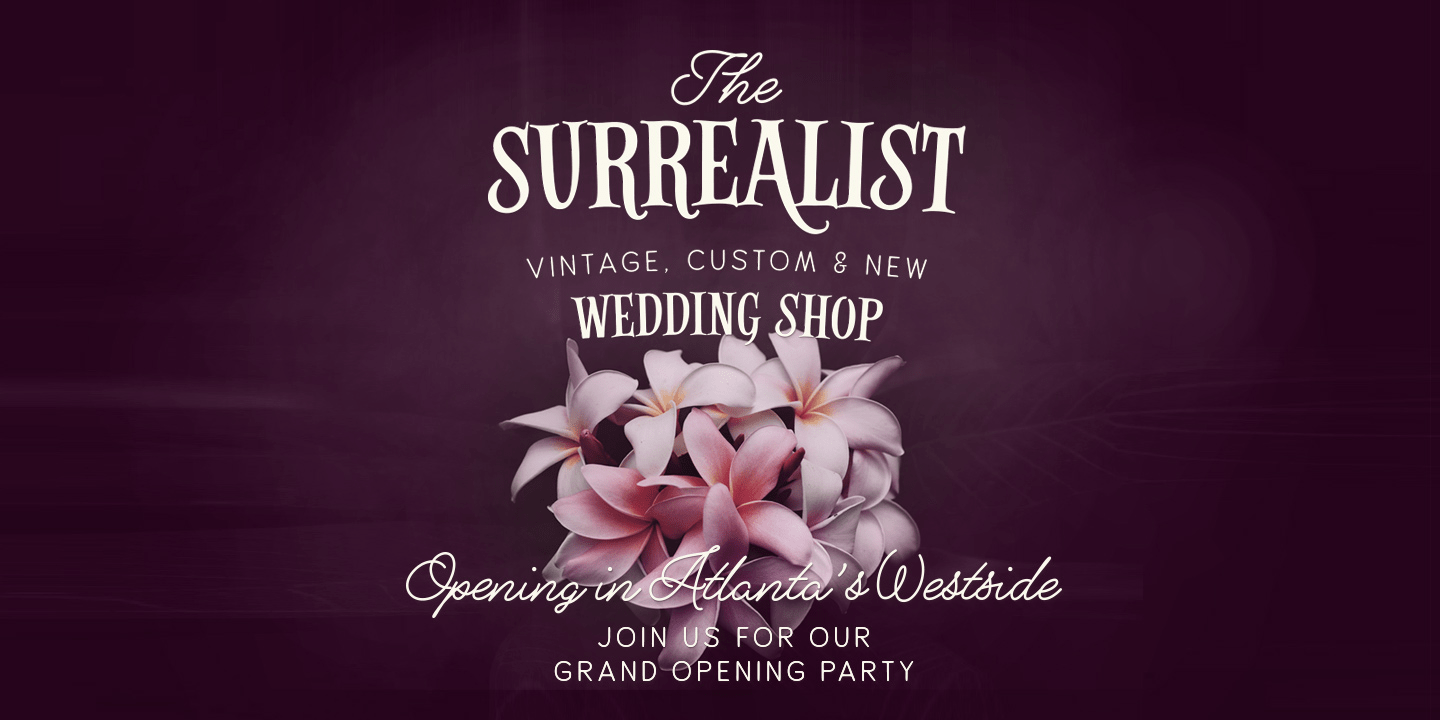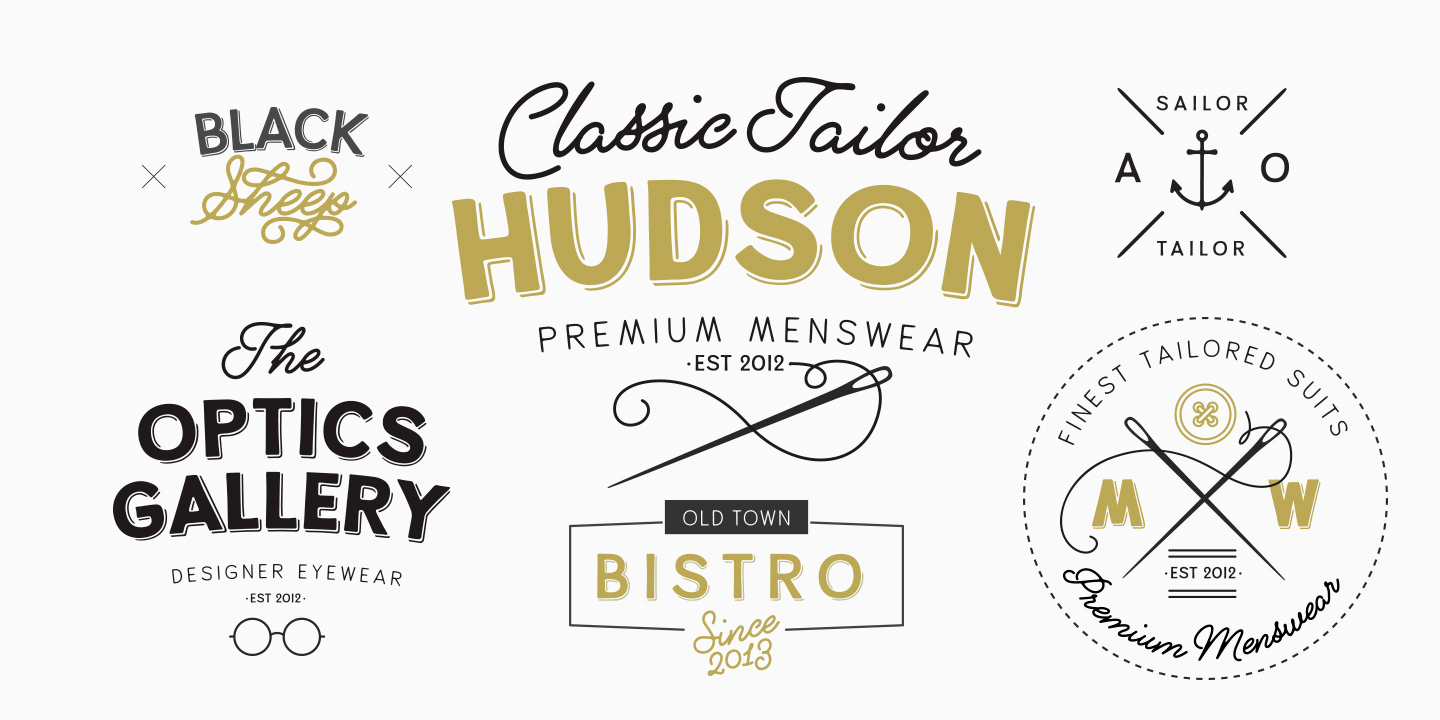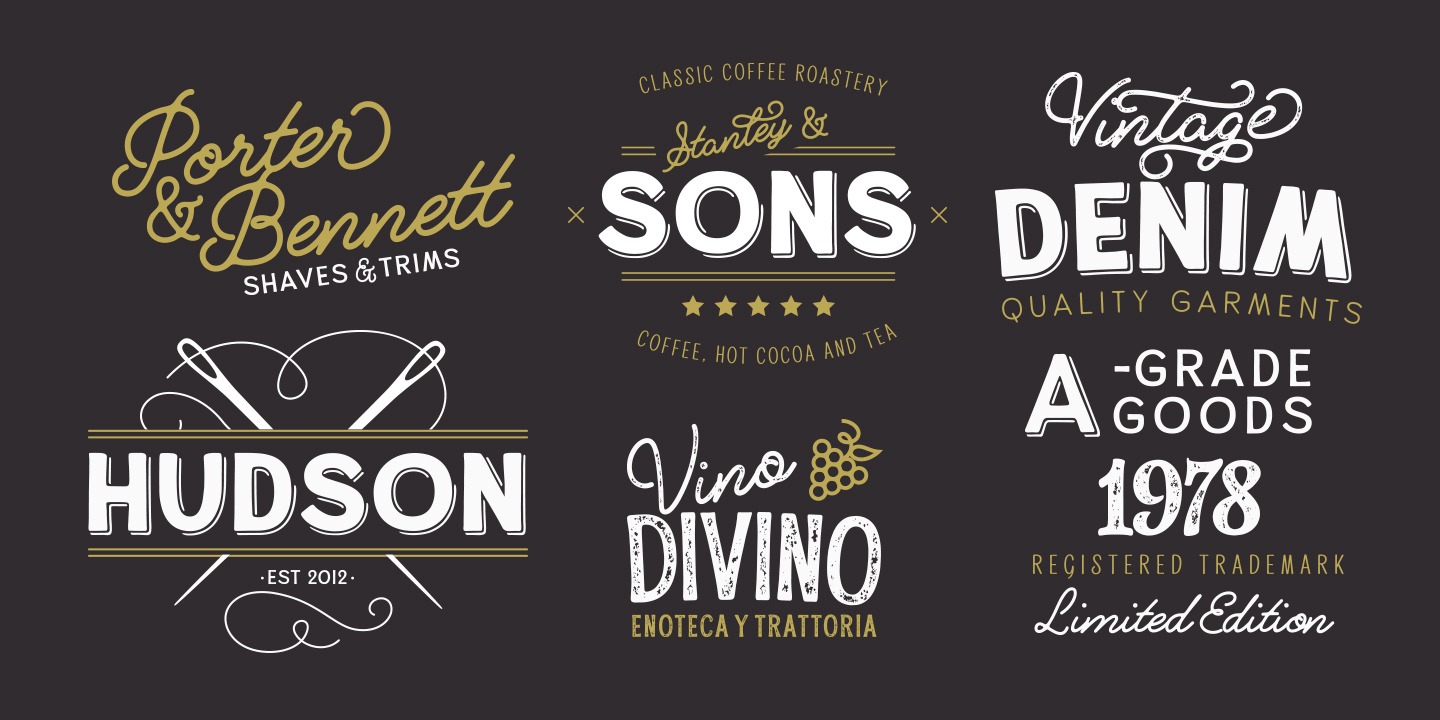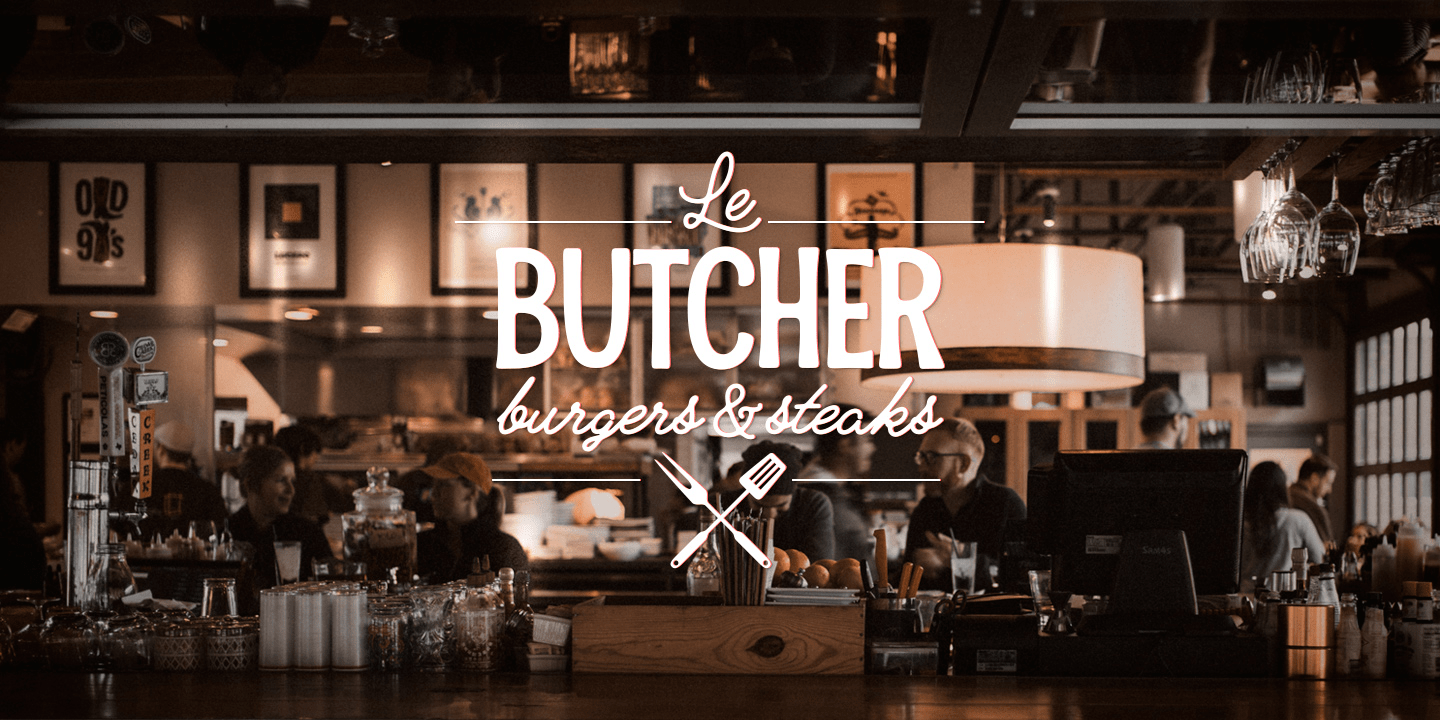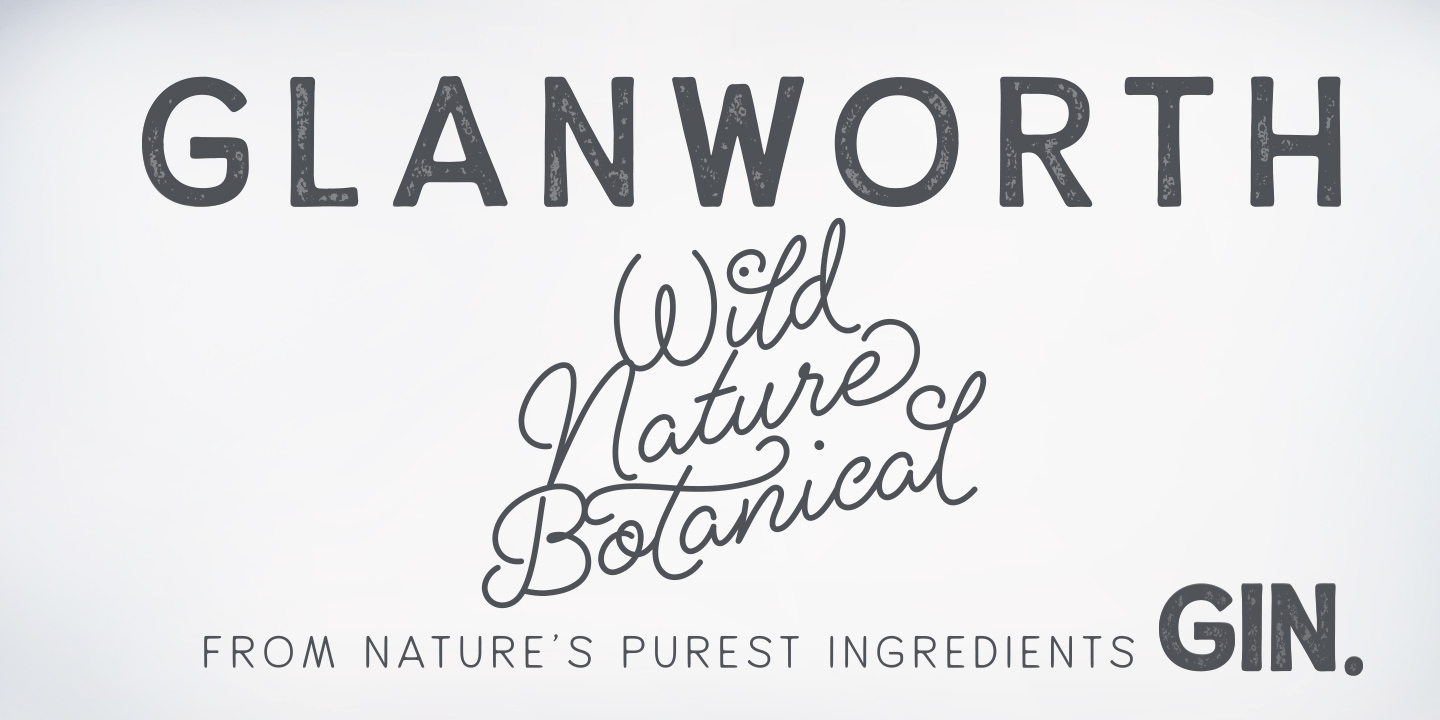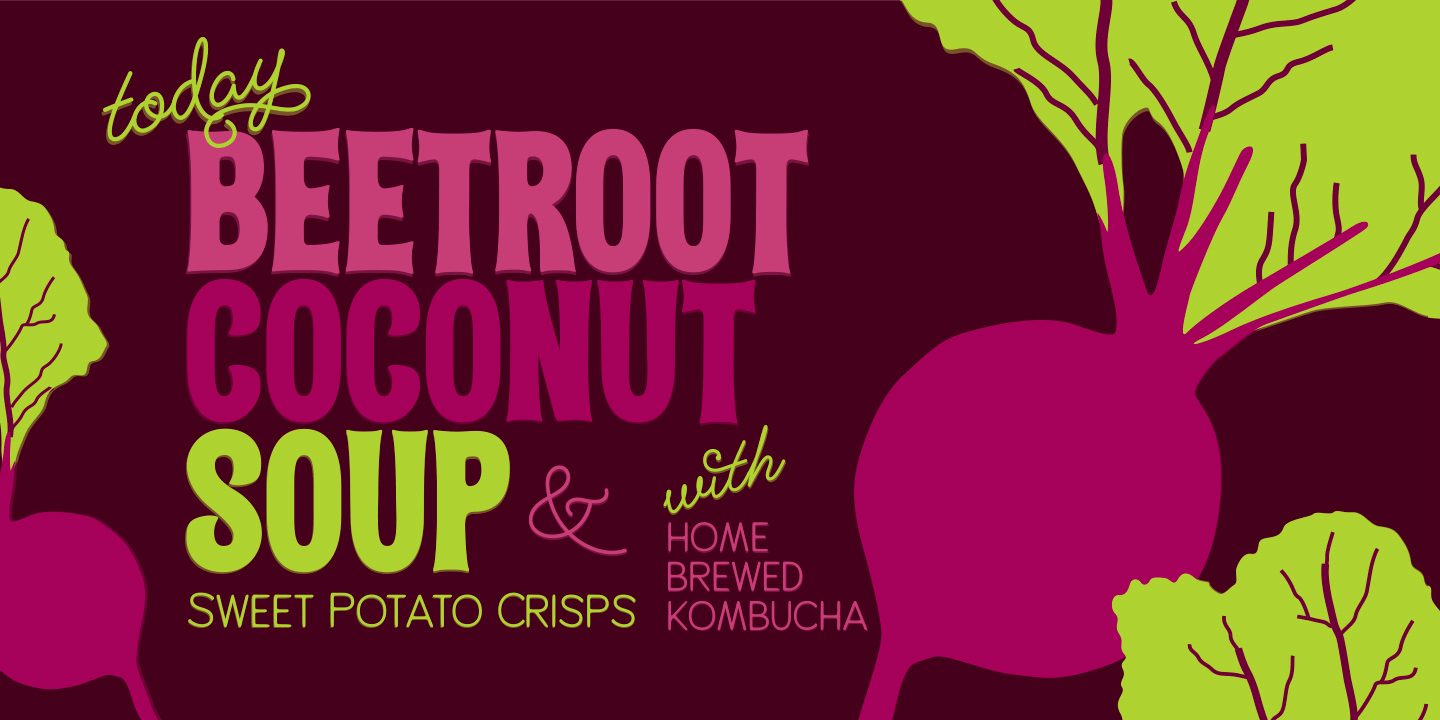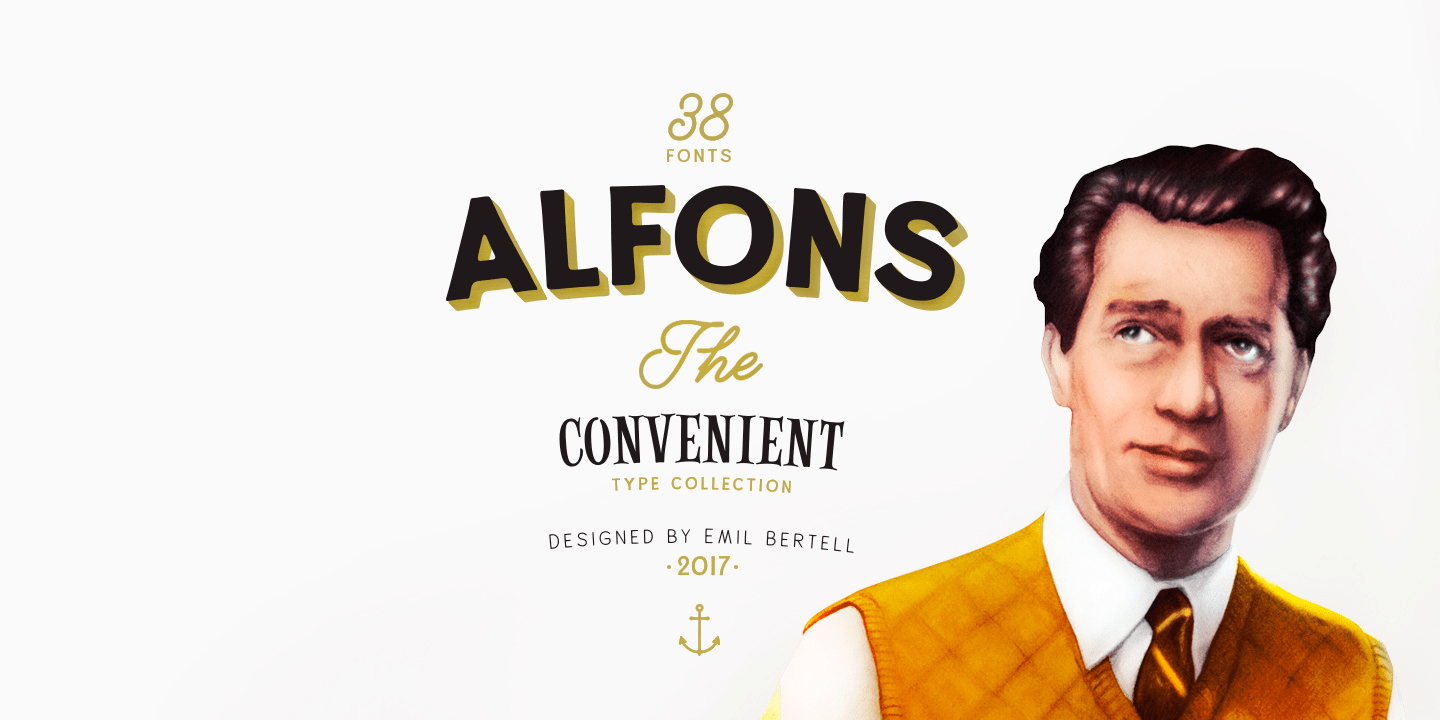
About Alfons
Alfons is a handy collection of 38 display fonts, with Ornaments and Extras on top of that! Alfons is divided into eight subfamilies that play great together. The core family is a monoline script that has eight weights from extra thin to black and on…